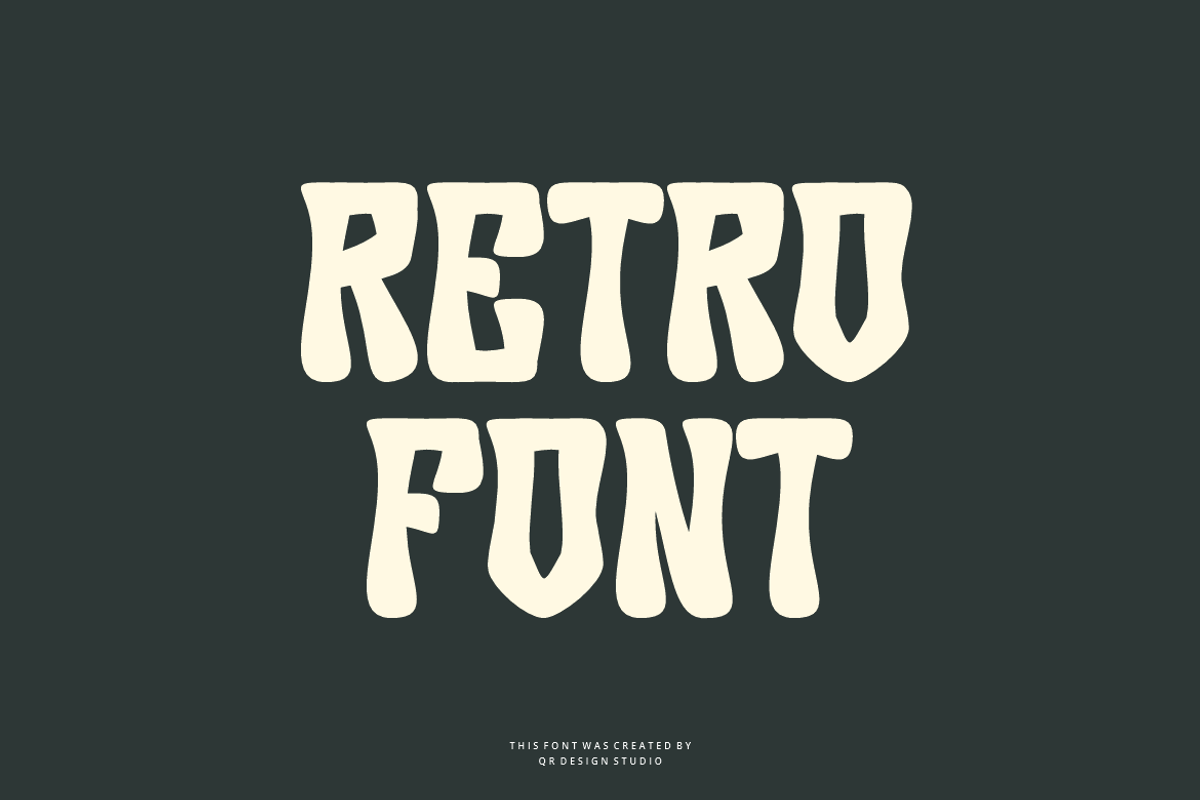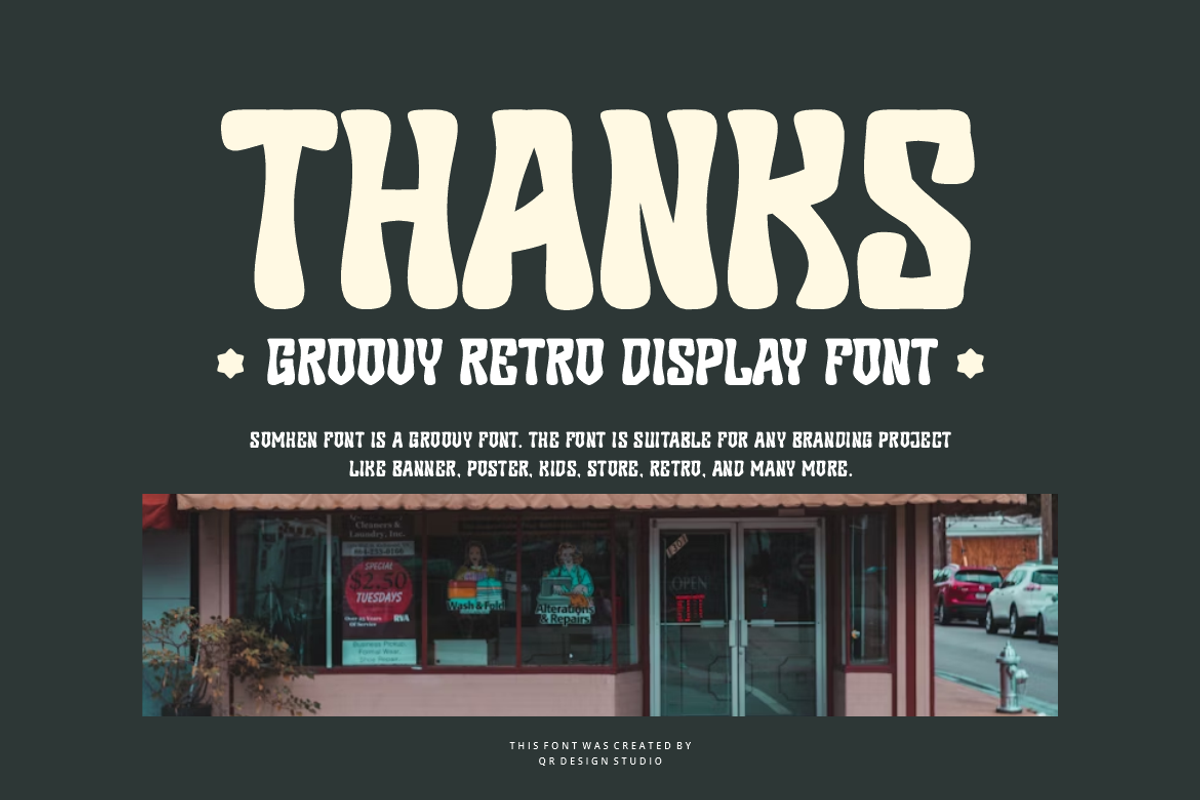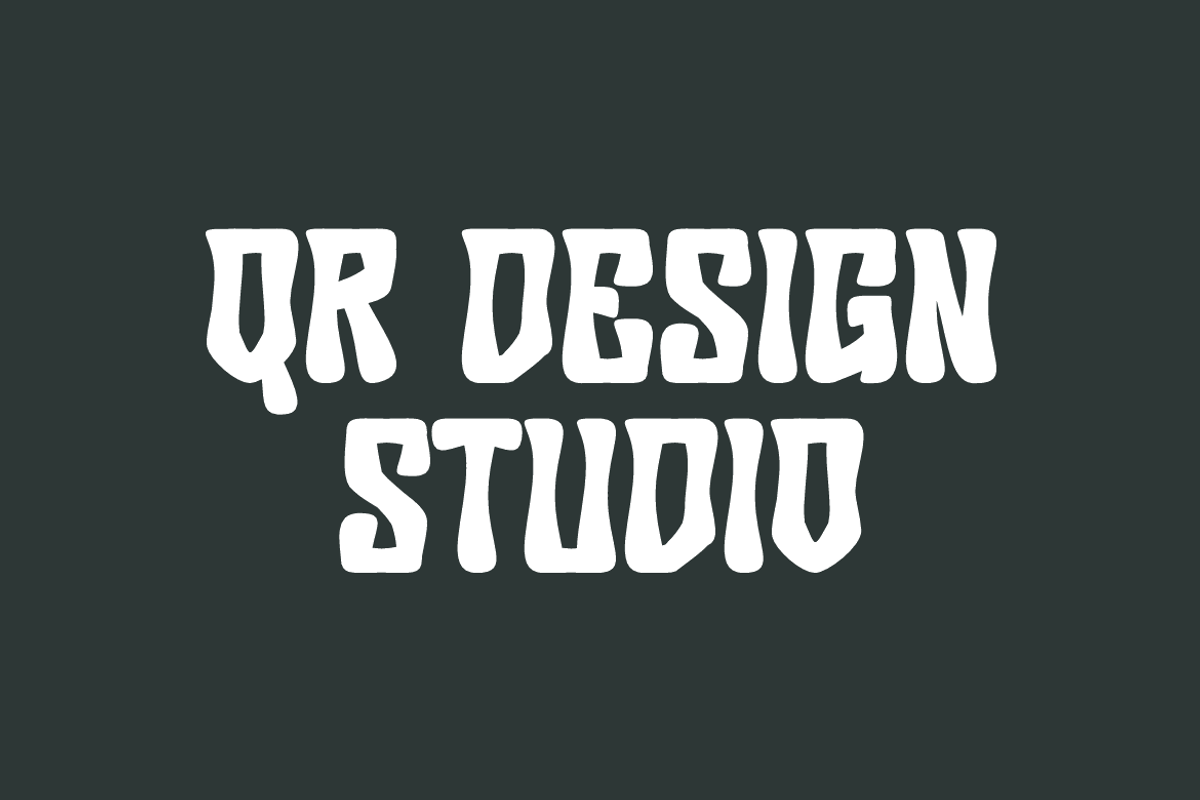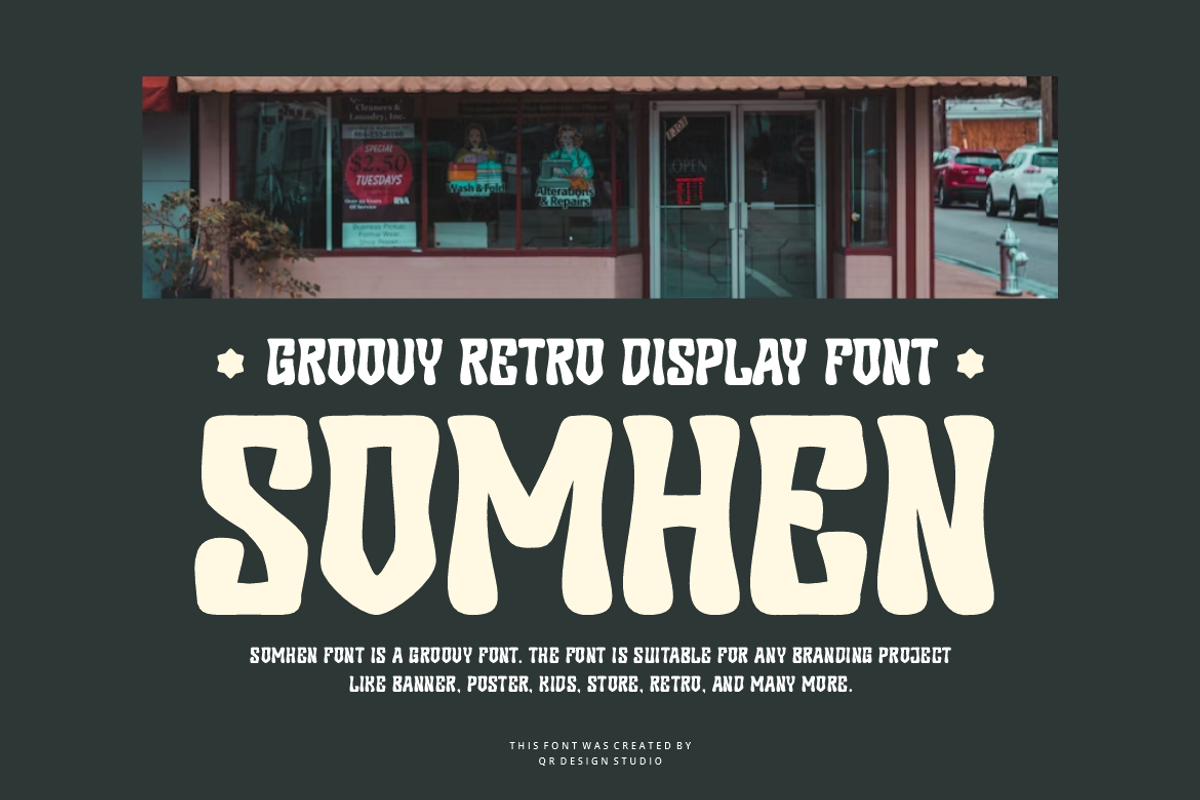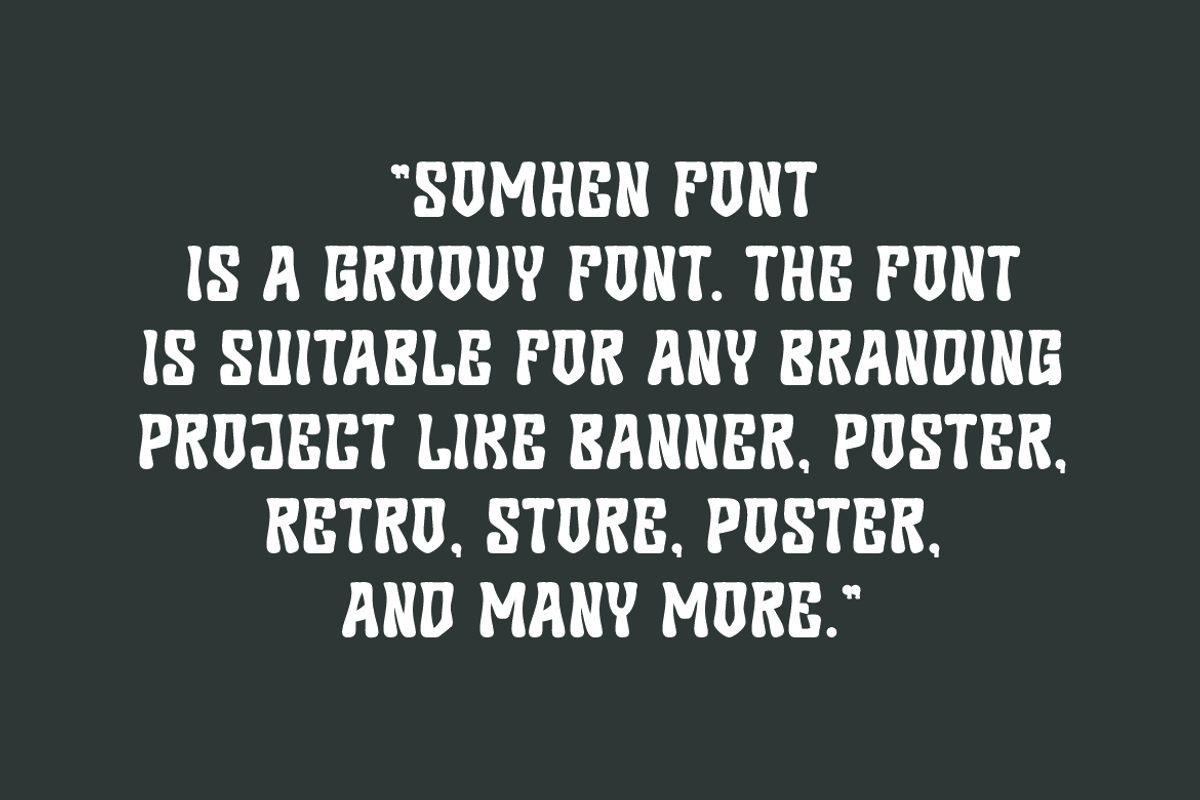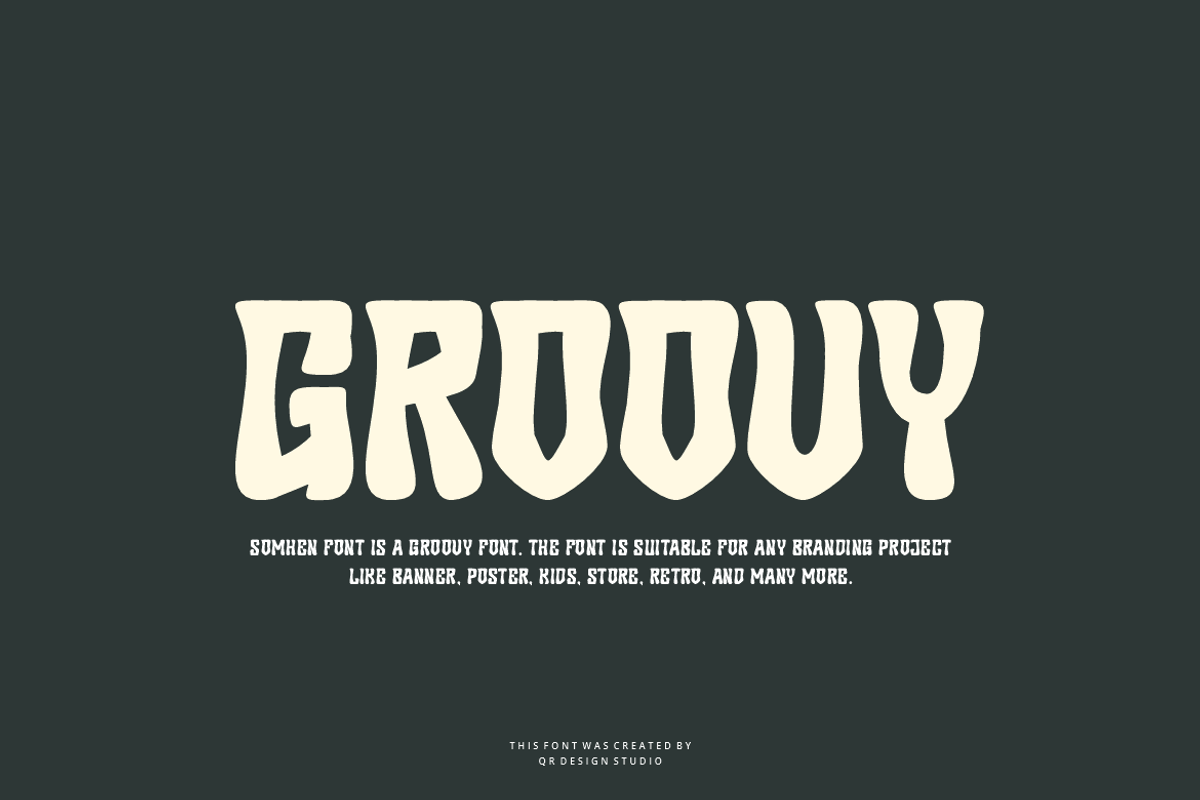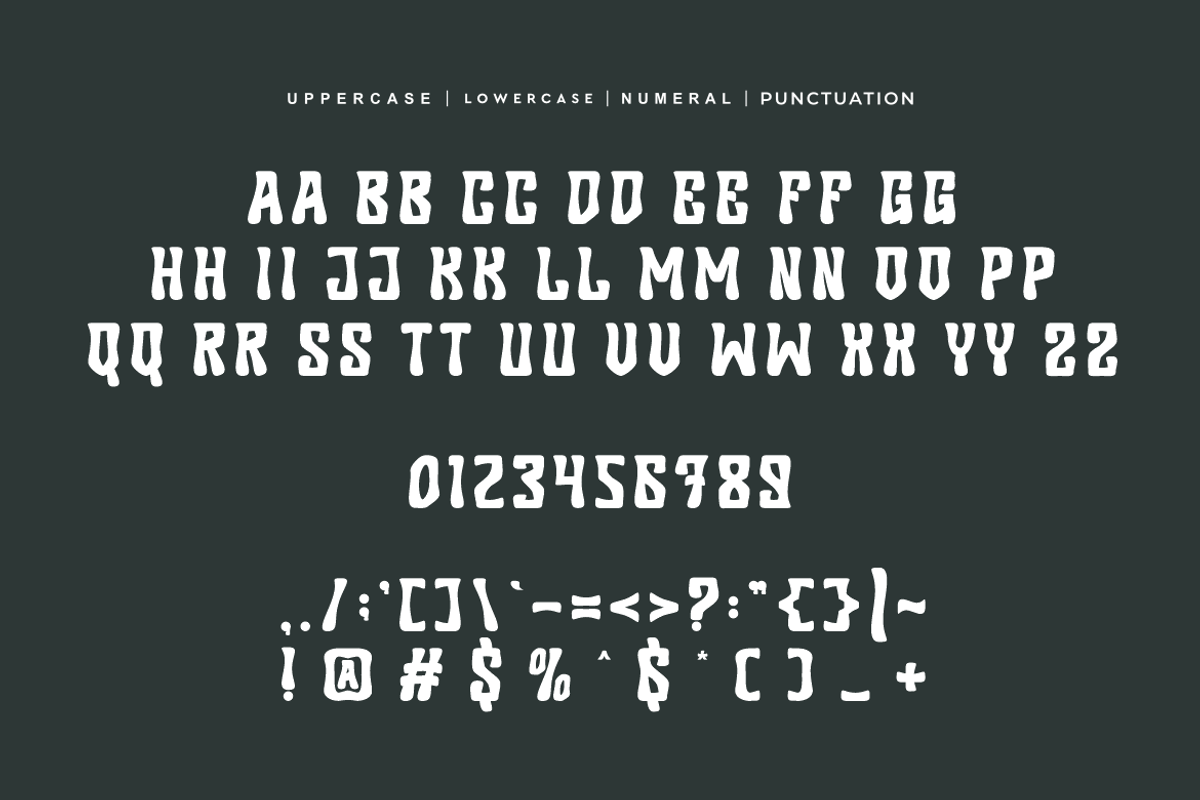
Somhen - Groovy Retro Font
Somhen Font is a groovyand authentic display font. The font is suitable for any branding project like poster, logo, retro, and many more. Outstanding in a wide range of contexts.